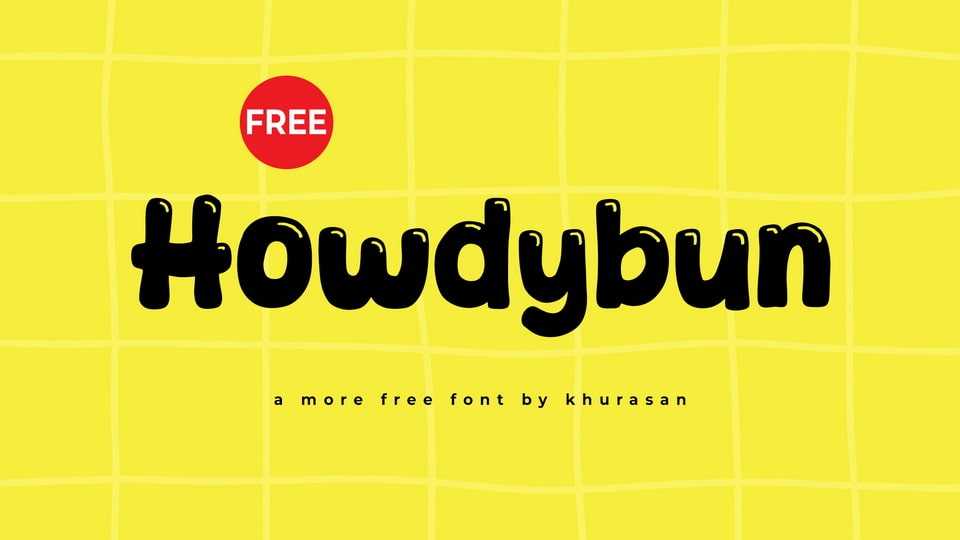
Download Howdybun font, a chunky, bubbly typeface packed with personality and sprinkled with playfulness. Its bold letterforms feature subtle inner highlights, giving them a squishy, glossy, almost marshmallow-like feel.